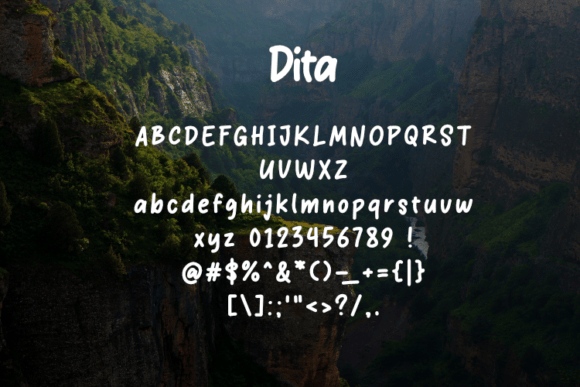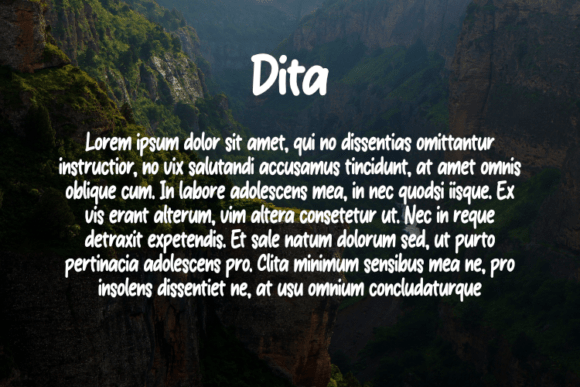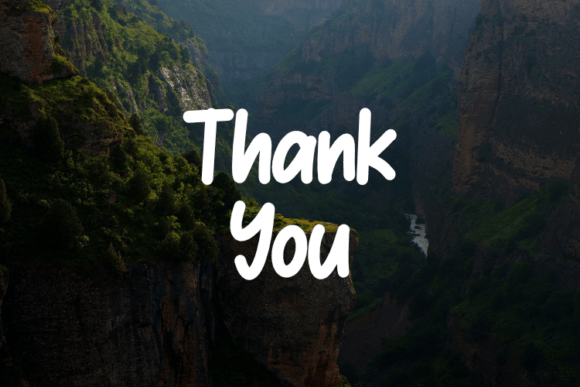
Discover the Timeless Elegance of Dita Font: Elevate Your Designs with Sophistication
In the world of design, fonts play a crucial role in conveying the message and aesthetic of a brand or product. For designers and crafters seeking to add a touch of sophistication and style to their apparel and merchandise designs, the Dita font is an excellent choice. With its classic elegance and versatility, Dita has become a go-to font for creatives looking to make a lasting impression.
The Dita Font: A Perfect Blend of Style and Sophistication
The Dita font is meticulously crafted to capture attention while accentuating the beauty of any design. Its timeless elegance makes it an ideal choice for designers who want to create stunning apparel and merchandise that exudes refinement and poise. Whether you’re designing for fashion, lifestyle, or home decor, Dita’s sophisticated charm is sure to elevate your creations to the next level.
Universally Applicable and Easy to Use
Unleash Your Creativity with Dita’s Versatile Charm
The Dita font is incredibly versatile, making it perfect for a wide range of design applications. From fashion and beauty to lifestyle and home decor, Dita’s elegant charm can be used to create stunning designs that speak volumes. Whether you’re designing for print or digital platforms, Dita’s crisp and clean lines ensure that your message is conveyed with clarity and sophistication.
The Benefits of Using Dita Font in Your Designs
So, what sets Dita apart from other fonts on the market? Here are just a few benefits of using Dita in your designs:
- Timeless elegance: Dita’s classic design ensures that your creations will remain stylish and relevant for years to come.
- Versatility: Dita can be used for a wide range of design applications, from apparel and merchandise to digital platforms and print materials.
Tips for Getting the Most Out of Dita Font
To truly make the most of Dita’s elegant charm, here are a few tips to keep in mind:
- Experiment with different sizes and colors: Dita’s versatility means it can be used in a variety of contexts, from large-scale signage to small-scale product labels.
- Pair Dita with complementary fonts: Dita’s classic elegance makes it an excellent choice for pairing with other fonts to create visually striking designs.
- Use Dita consistently across your brand: To establish a strong brand identity, use Dita consistently across all your design materials, from business cards to website headers.
Conclusion: Elevate Your Designs with Dita Font
Great design starts with the right font, and Dita is the perfect choice for designers and crafters seeking to add a touch of sophistication and style to their creations. With its timeless elegance, versatility, and ease of use, Dita is an excellent addition to any design toolkit. Whether you’re a seasoned pro or just starting out, Dita’s universal charm is sure to make your designs speak volumes. So why wait? Choose Dita today and discover the power of elegant typography.